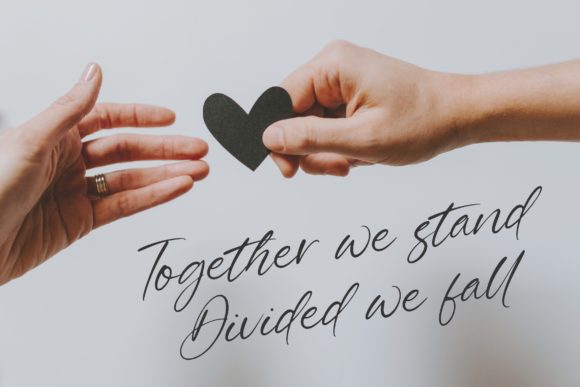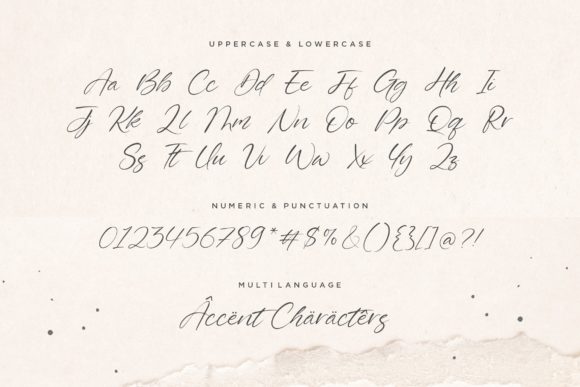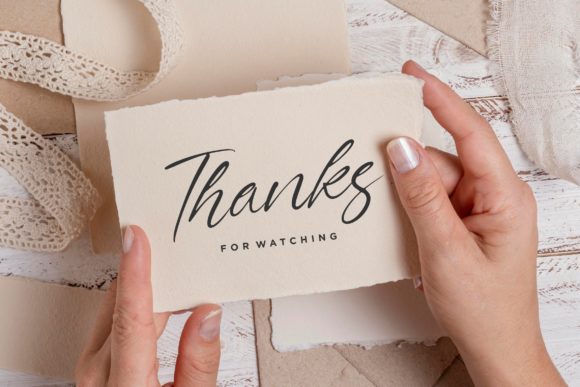
Introduction to Energetica Font
Have you ever been in the middle of a creative project, pouring your heart and soul into it, and then suddenly, you’re stuck? The words just won’t flow, and your design seems to be missing that special something. This is where the perfect design resource can come to the rescue.
Enter the Energetica Font, a delicate, elegant, and flowing handwritten font that’s sure to breathe life into your most creative ideas. With its beautiful and well-balanced characters, it’s no wonder that this font has become a go-to choice for designers looking to add a touch of sophistication to their work.
What sets Energetica Font apart is its versatility – it works beautifully on a transparent background, making it perfect for a wide range of design projects. And the best part? It’s available for a free download, making it an accessible and valuable resource for designers of all levels.
Key Features of Energetica Font
- Transparent background for seamless integration in various designs
- Designed with a modern and energetic feel, perfect for digital art and design
- Comprehensive character set, including uppercase and lowercase letters, numbers, and symbols
Honest Review: Energetica Font
I recently came across the Energetica Font and was excited to give it a try. As a designer, I’m always on the lookout for high-quality design resources to add to my toolkit. The Energetica Font is a great addition to any creative project.
- ✨ The transparent background makes it easy to integrate into any design project.
- ✨ The font is highly customizable, allowing for a wide range of creative possibilities.
- ⚠️ The font may not be suitable for small text sizes, as it can become difficult to read.
- ⚠️ The font is not as versatile as some other fonts, making it more suited to specific design projects.
Overall, I’m impressed with the Energetica Font. It’s a great choice for designers who need a high-quality, customizable font for their creative projects. While it may have some limitations, it’s definitely worth considering as a design resource.
Introduction to Energetica Font
Energetica Font is a high-quality design resource ideal for creative projects. It features a unique and modern style that can add a touch of sophistication to any design. The font is available for free download, making it an excellent choice for designers on a budget.
Tips for Getting the Most Out of Energetica Font
To get the most out of Energetica Font, use it with a transparent background to create a clean and modern design. You can also experiment with different font sizes and styles to add visual interest to your design.
Common Use Cases for Energetica Font
Energetica Font is ideal for use in creative projects, such as logos, business cards, and brochures. It is also suitable for use in digital design, such as social media graphics and websites.
Alternatives to Energetica Font
1. Poppins Font
Poppins Font is a high-quality sans-serif font perfect for design projects requiring a modern and clean look. It’s ideal for use on a transparent background, making it suitable for creative projects like logos, icons, and infographics.
Compared to Energetica Font, Poppins Font is more versatile and can be used in a wide range of design contexts, from headings to body text.
Montserrat Font is a geometric sans-serif font that’s perfect for design projects requiring a high level of detail and sophistication. It’s a great choice for designers working on creative projects that need a touch of elegance, such as magazine layouts and advertising materials.
Montserrat Font is similar to Energetica Font in its modern and sleek design, but it’s more versatile and can be used in a wider range of design contexts.
Lato Font is a beautiful sans-serif font that’s perfect for design projects requiring a touch of warmth and sophistication. It’s ideal for use on a transparent background, making it suitable for creative projects like product design and branding materials.